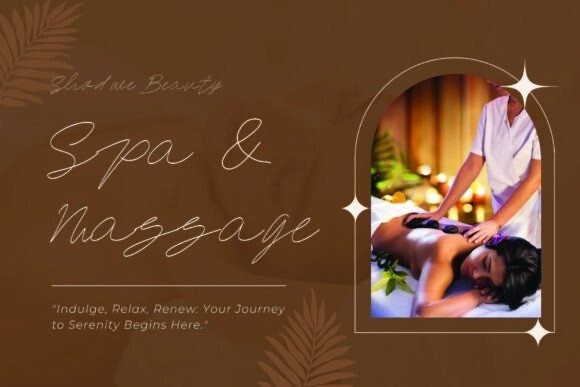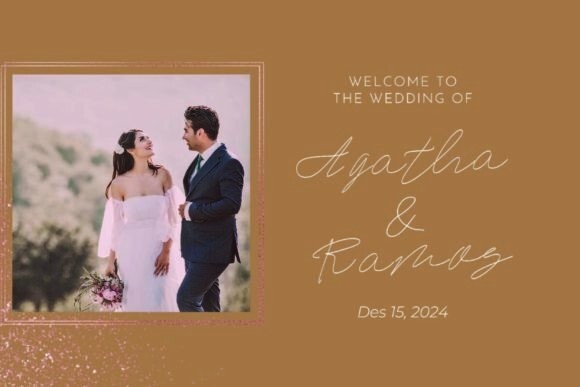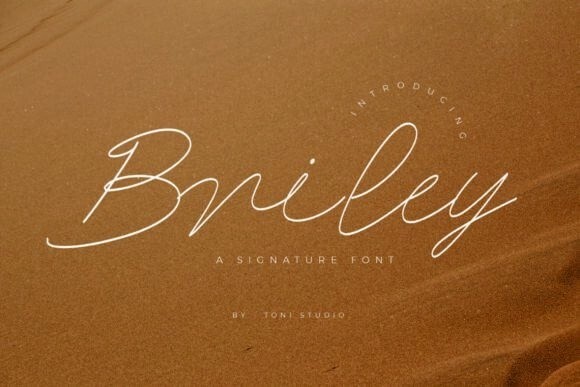
Briley Font
Designer: ToniStudio
Briley Font is a sleek and elegant script signature font, designed with delicate, thin outlines that create a modern yet refined look. Each character flows naturally, mimicking the fluidity of a handwritten script while maintaining a professional appearance. The fine, outline strokes resemble the touch of a calligraphy pen, making Briley perfect for branding projects, logos, invitations, and designs that require a soft, sophisticated touch.